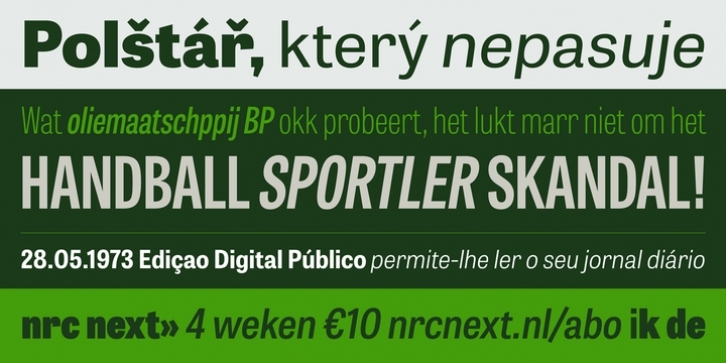
Tablet Gothic downloadDesigner: Veronika Burian,
Publisher: TypeTogether
Graphic designers of any nationality and background know very well that the art of composing titles correctly is not easy, Especially when it comes to periodical publications where there is need for both flexibility and graphic coherence. Tablet Gothic was originally engineered as a titling type family, meant to help designers working on publications that require output as hard copies and a variety of digital platforms at the same time. As such, it is a grotesque sans serif that looks to the future of publishing with a clear understanding of its history, and reminiscences that go back to nineteenth century Britain and Germany.
Tablet Gothic delivers the sturdy, straightforward and clean appearance expected from a grotesque, but it allows itself a good measure of personality to make it stand out on the page. Its 84 styles –six series of condensation and seven weights in each series plus obliques– guarantee that, whatever the publication format is, there’s a Tablet Gothic font that will do the job and perform well both technically and aesthetically. Furthermore, the rounder styles, Tablet Gothic Wide, Normal and Narrow achieved amazing results at very small sizes, producing  a beautiful texture and highly readable text blocks.